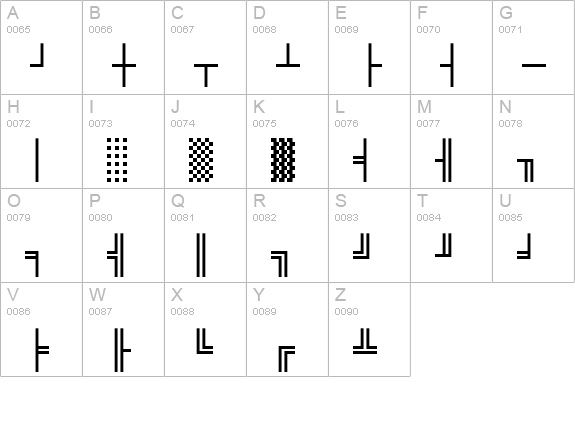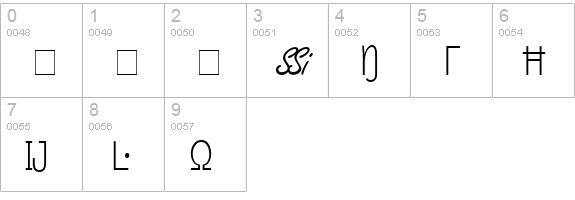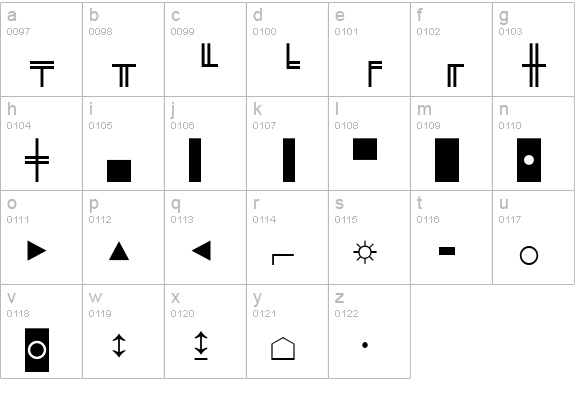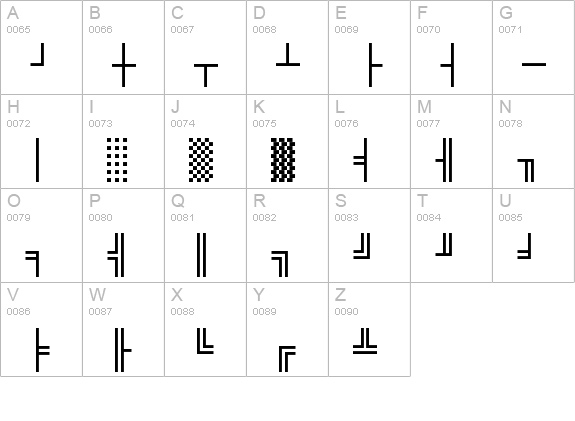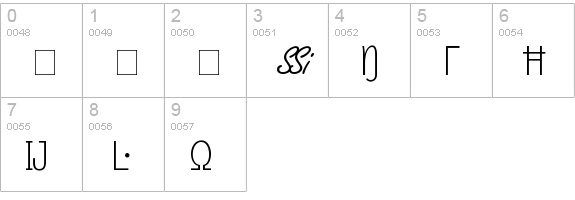
Micro Pi One SSi Normal Font Details
Micro Pi One SSi Normal is the standard, neutral variant in the Micro typeface family \xE2\x80\x94 well suited to general body text, paragraphs, and standard typographic work.
The Micro Pi One SSi Normal font is a sleek and modern typeface that exudes professionalism and elegance. Its clean lines and sharp edges make it perfect for a wide range of design projects, from logos to headlines to body text. This versatile font is sure to make your work stand out and leave a lasting impression on your audience. Best of all, the Micro Pi One SSi Normal font is available for free download at FontsMarket.com. This means you can easily incorporate this stylish font into your projects without breaking the bank. Whether you're a seasoned designer or just starting out, this font is a must-have addition to your collection. Download it today and elevate your designs to the next level!